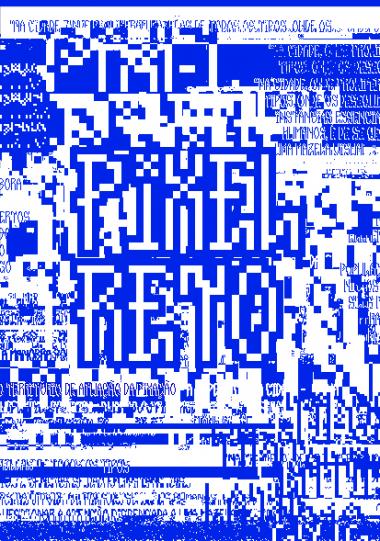
Pixel Reto Shadow
Pixel Reto is a pixel font based on 'pixo reto', one of Brazil's most representative form of graffiti http://www.behance.net/gallery/Pixel-Reto/3443107